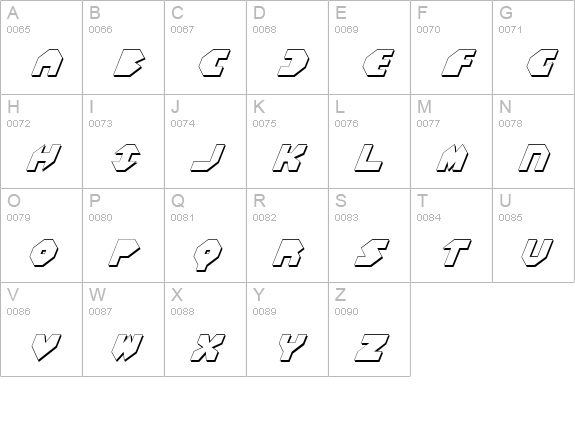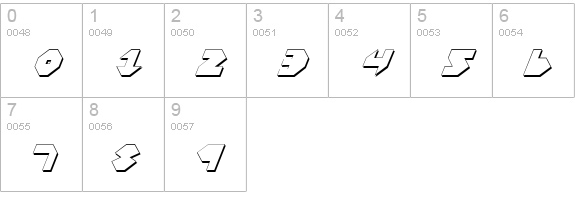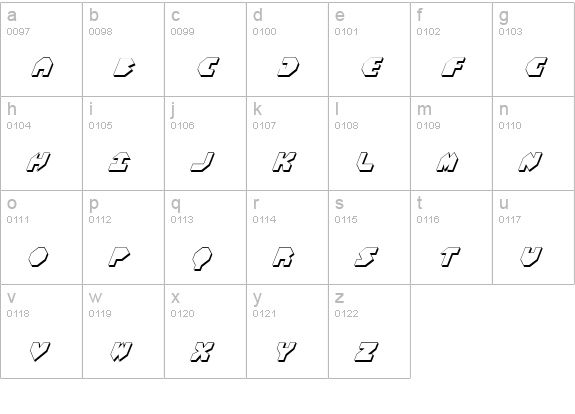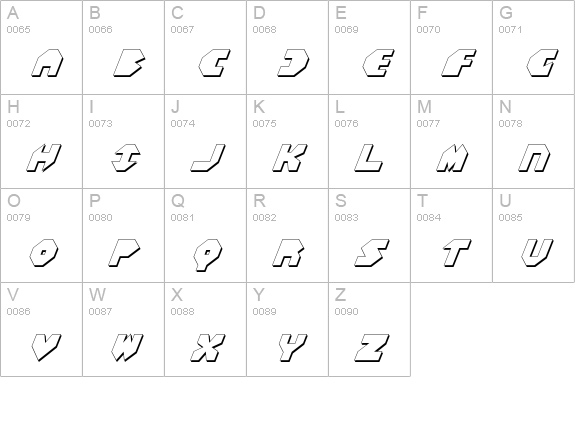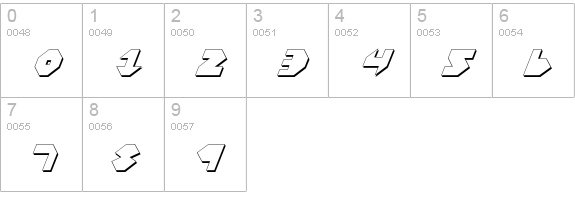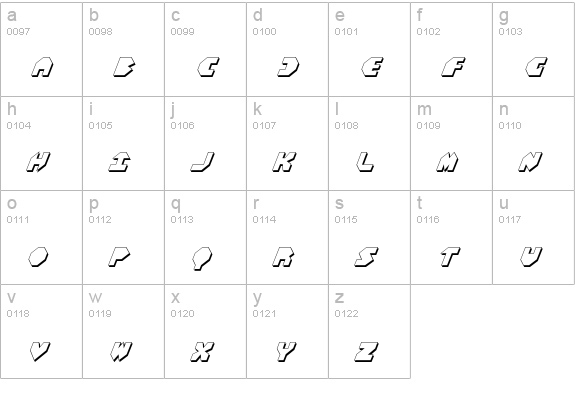
Bal-Astaral 3D Italic Font Details
Bal-Astaral 3D Italic is a distinctive, italic variant in the Bal typeface family \xE2\x80\x94 well suited to design and typography projects.
Bal-Astaral 3D Italic font is a stunning and dynamic typeface that exudes elegance and modernity. Its sleek and three-dimensional design brings a sense of depth and sophistication to any project it is used in. The italicized style adds a touch of flair and creativity, making it perfect for headings, logos, and other design elements that require a bold statement. The Bal-Astaral 3D Italic font is a versatile choice for both print and digital designs, showcasing its versatility and adaptability to various mediums. Its unique look and feel make it stand out from the crowd, making it a great choice for designers looking to make a lasting impression. Best of all, Bal-Astaral 3D Italic font is available for free download at FontsMarket.com. This means you can easily access this stylish font and incorporate it into your projects without any cost. Don't miss out on the opportunity to enhance your designs with this eye-catching and contemporary typeface. Download Bal-Astaral 3D Italic font today and elevate your design projects to the next level.